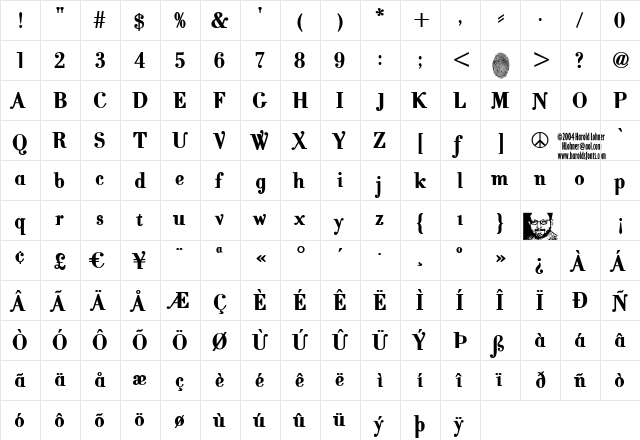
CantabileBold Regular
Design Context for CantabileBold Typeface
CantabileBold takes a measured approach to typography — its balanced proportions and neutral character make it a reliable workhorse for both digital and print work. The heavy weight commands attention and anchors typographic hierarchies.